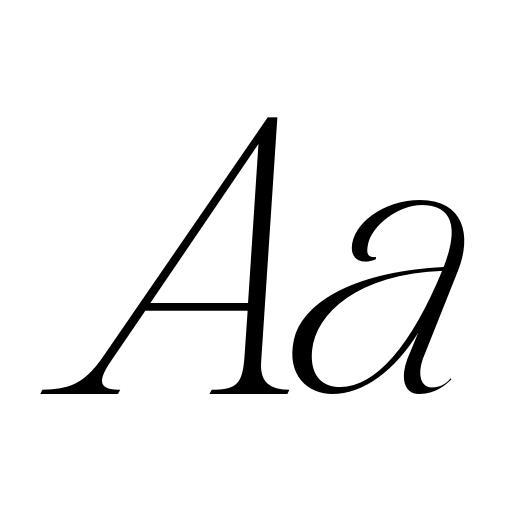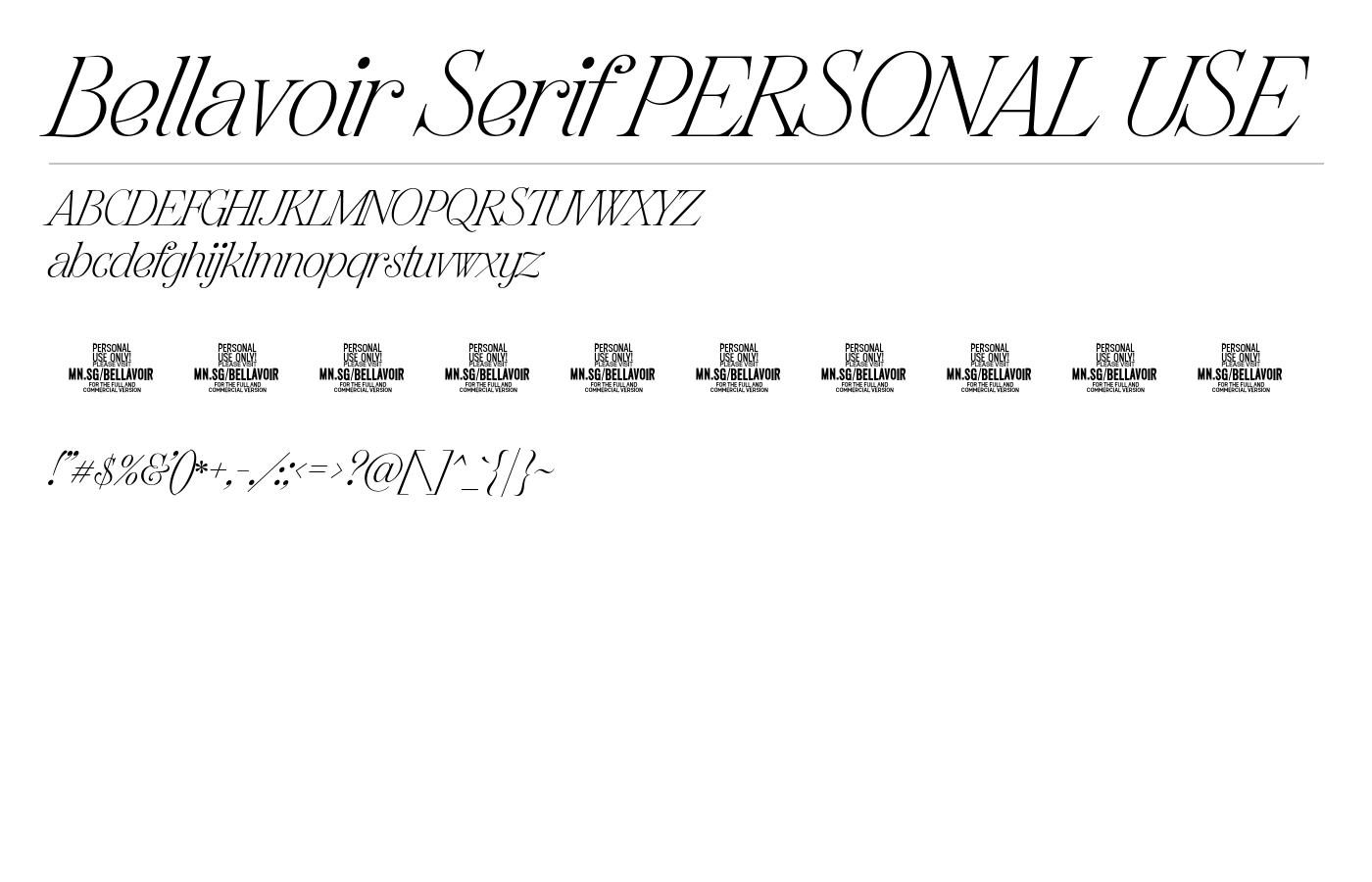
Bellavoir Serif is an elegant, ultra-light serif font with a distinctively high contrast between its thin and slightly thicker strokes, featuring fine, bracketed serifs and a graceful italic style. Its slender letterforms with a high x-height and refined curves give it a sophisticated, classic look, making it perfect for luxury branding, editorial headlines, and elegant invitations where a stylish, timeless feel is desired. This font brings a delicate, refined personality that suits upscale and artistic projects needing a touch of modern refinement with a nod to traditional serif elegance.
Bellavoir Serif PERSONAL USE Font
About Bellavoir Serif PERSONAL USE Font